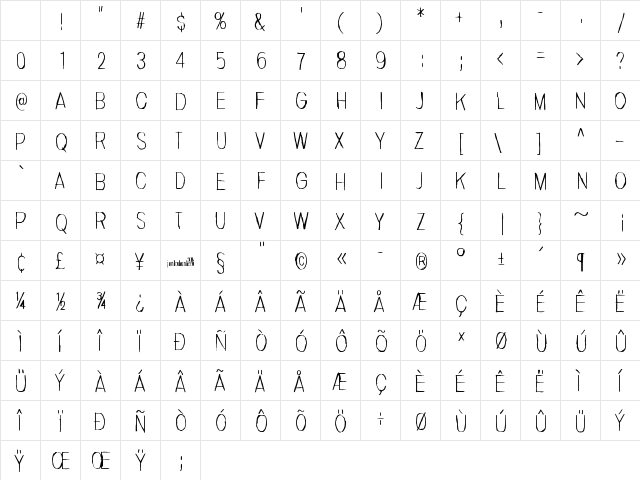
Invisiblerror is a composed and adaptable typeface that performs quietly and consistently across a wide range of design contexts.
Pro Tip: Use Invisiblerror in both headline and body roles to test its range before committing to a single application.